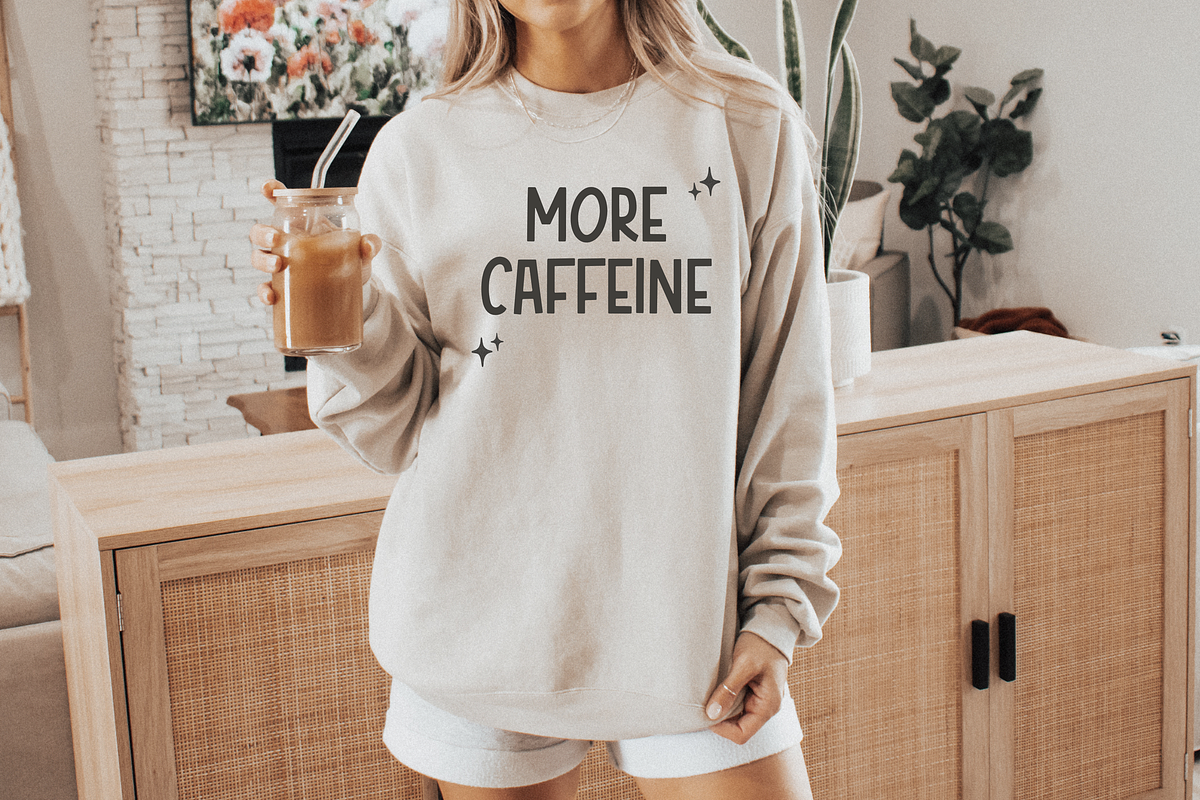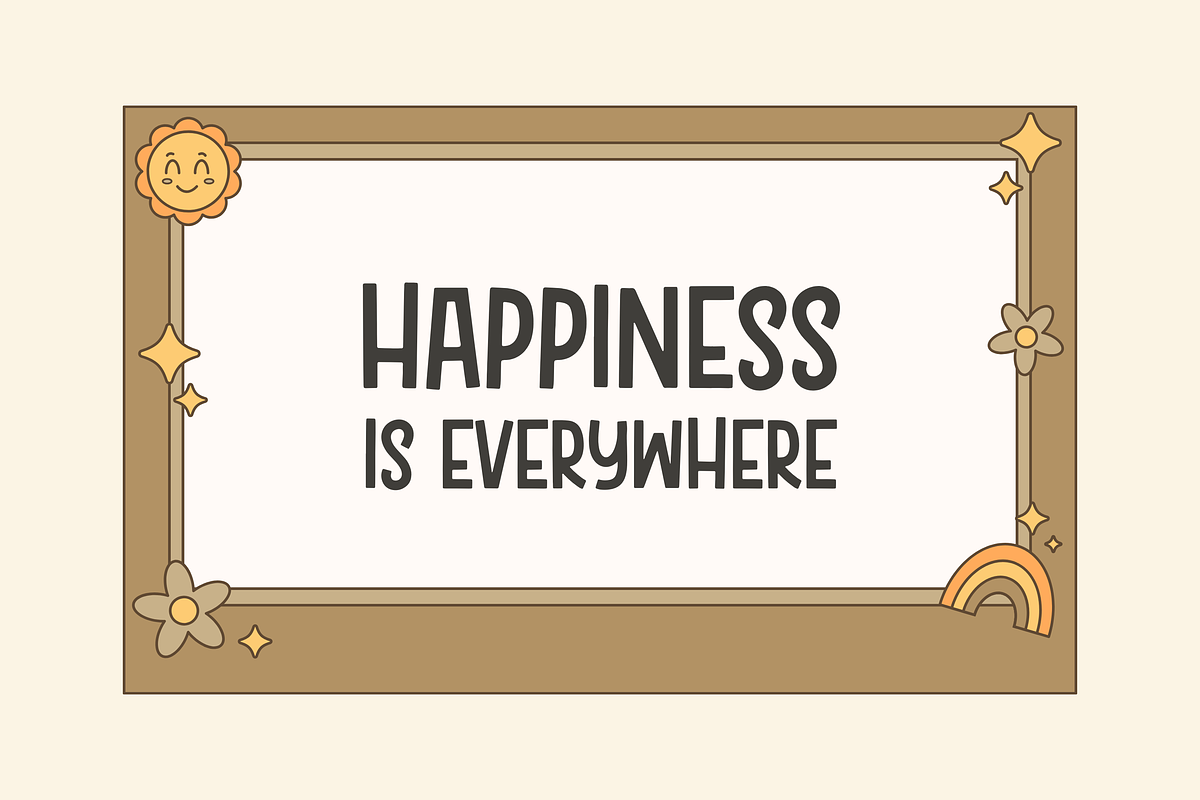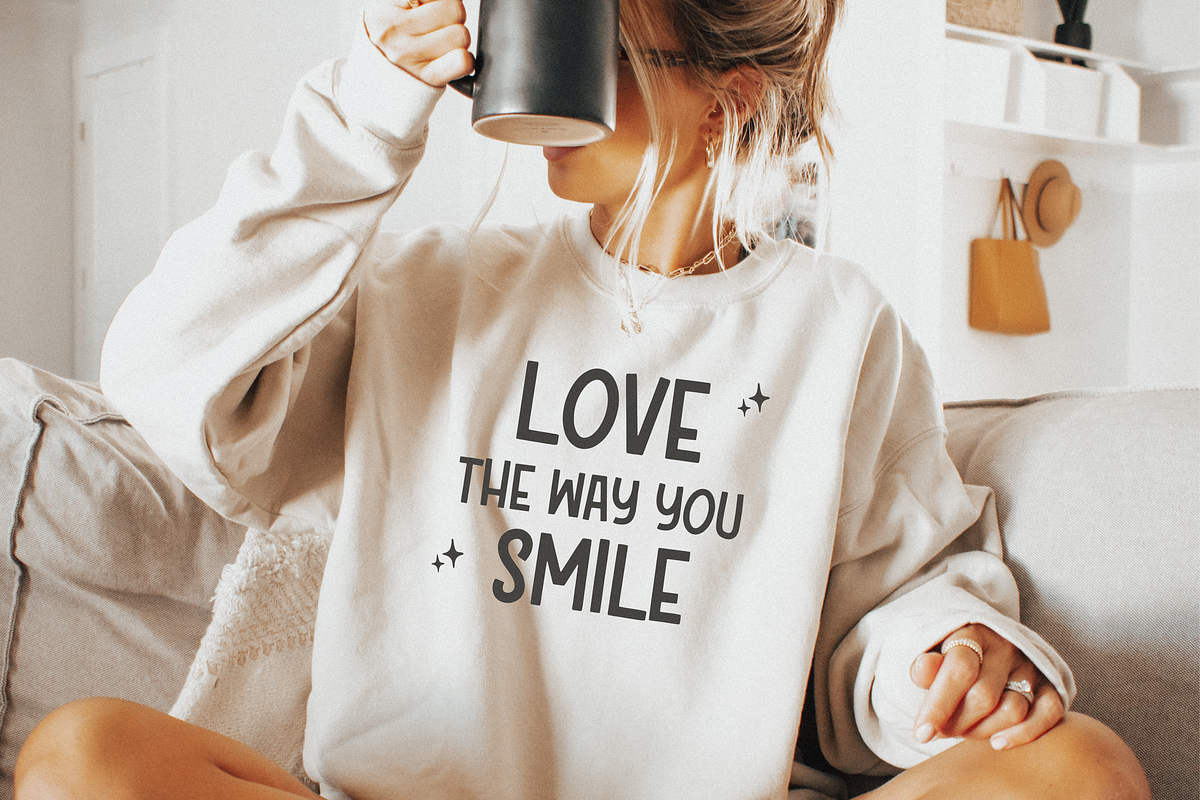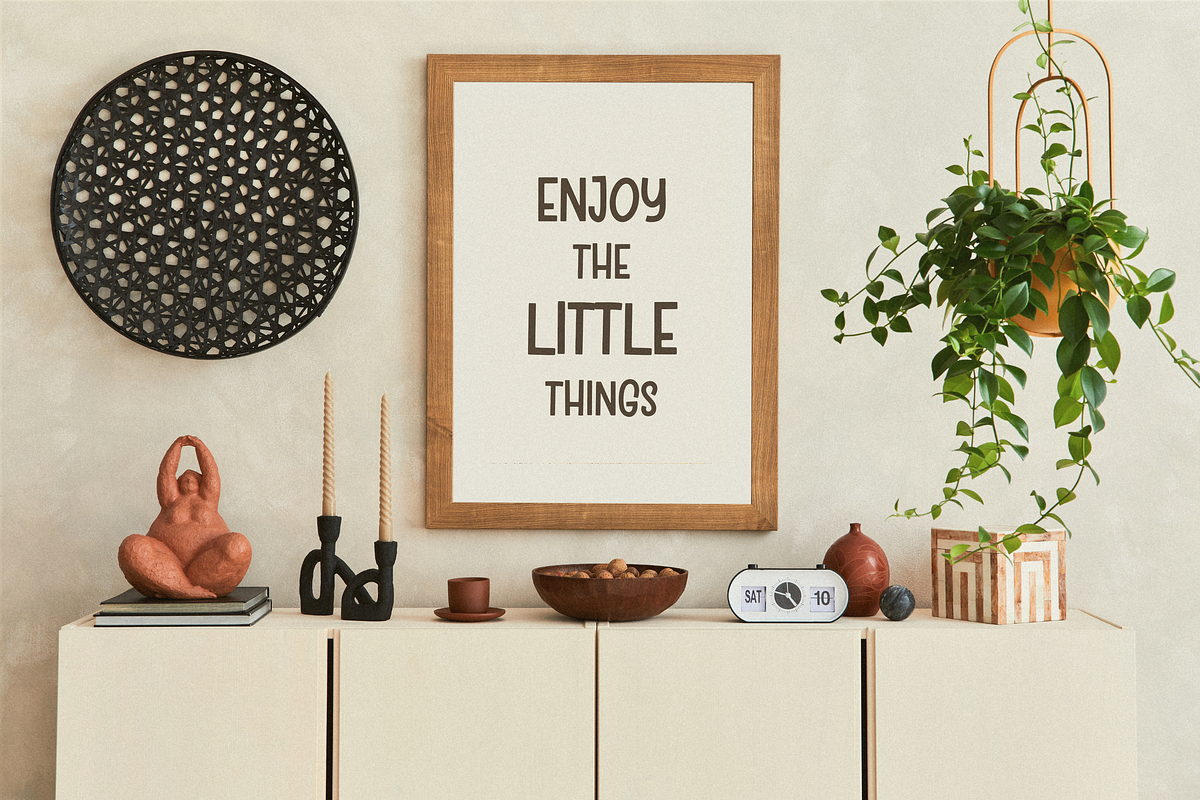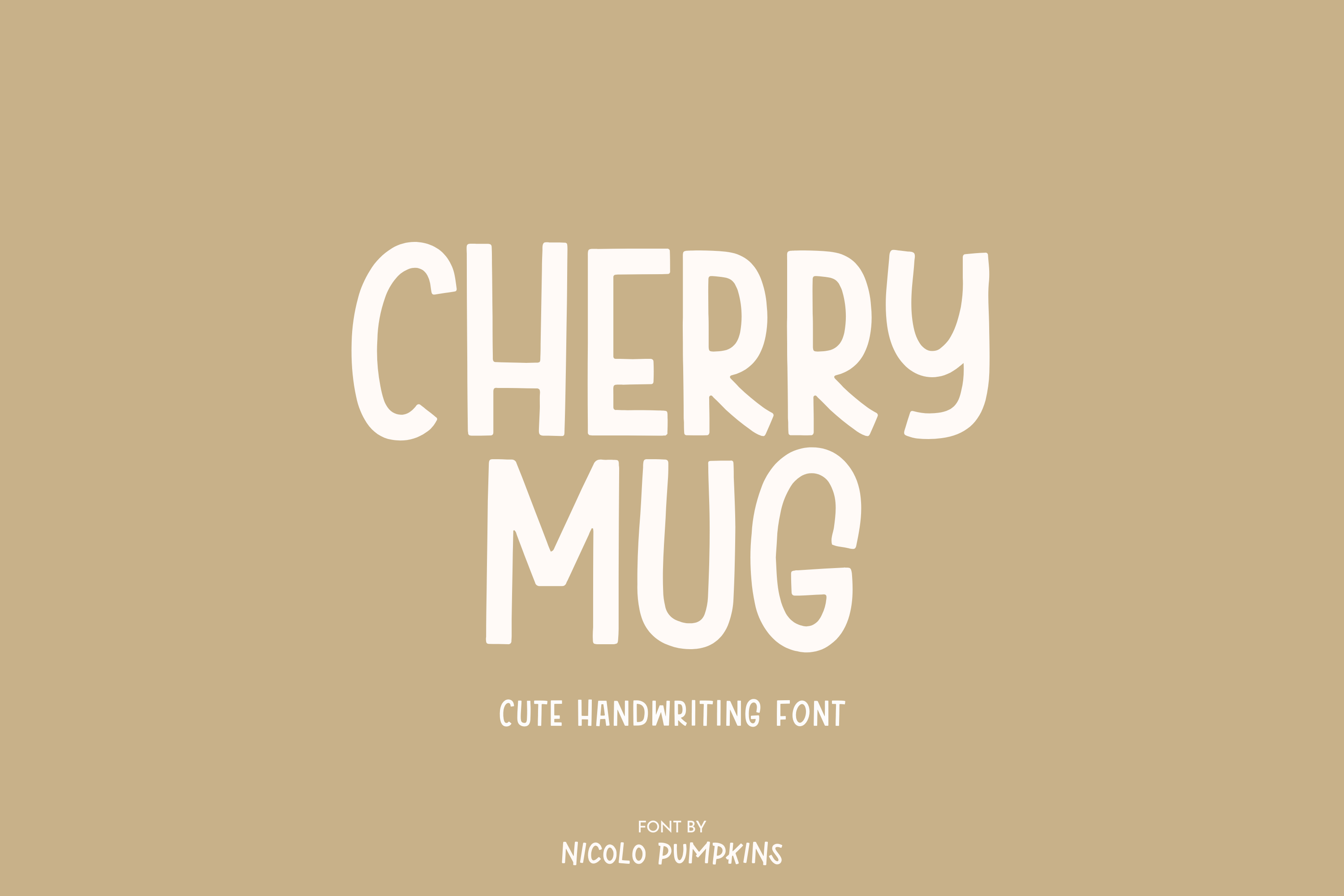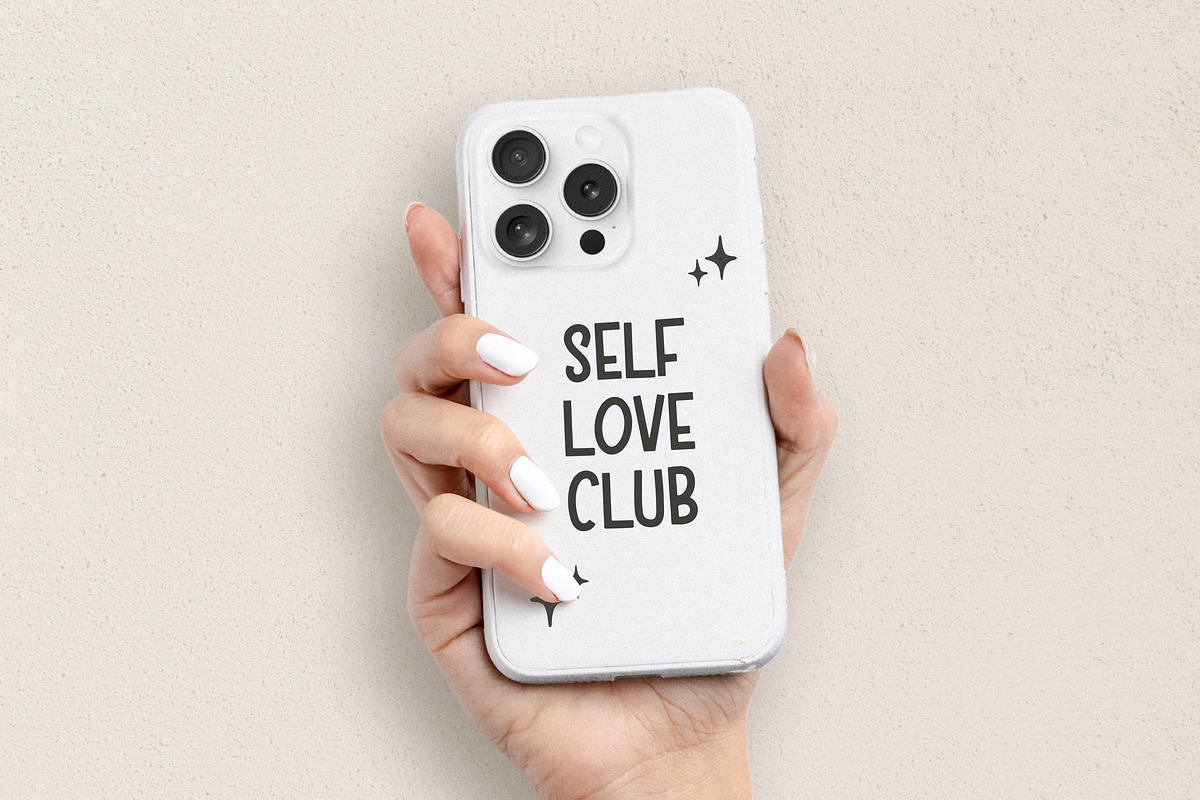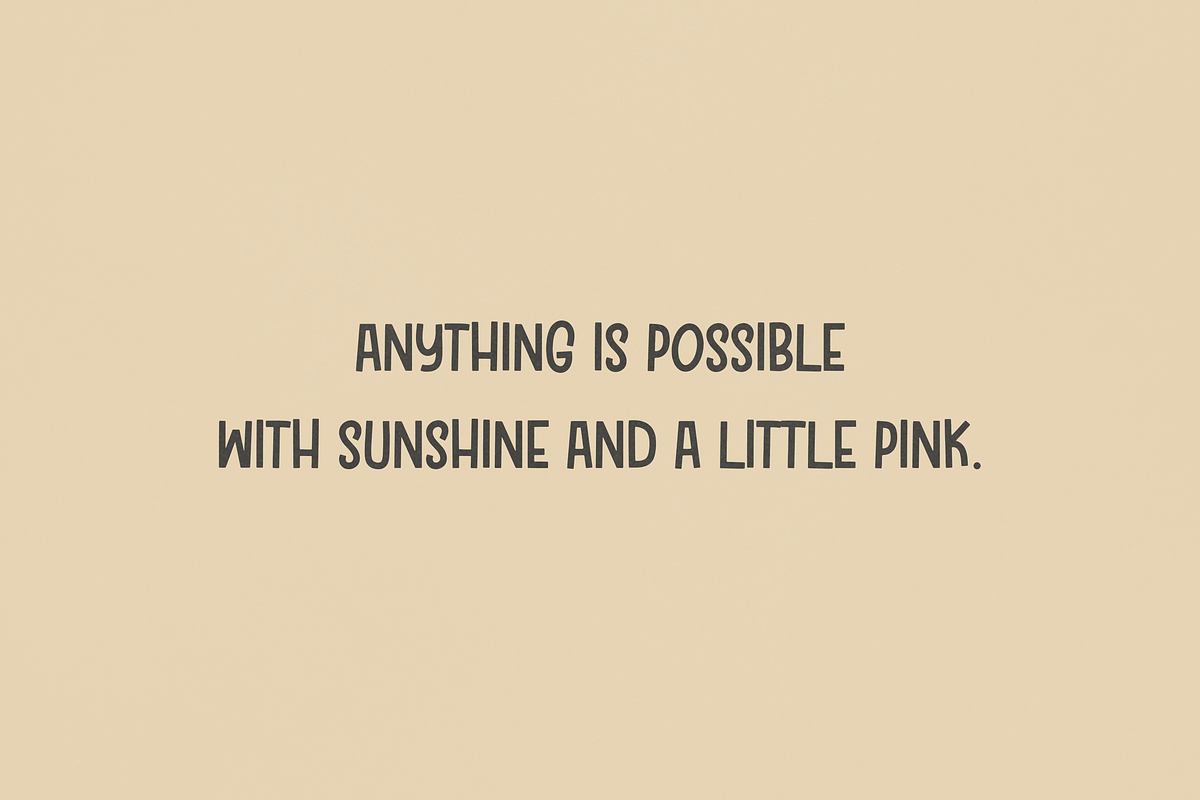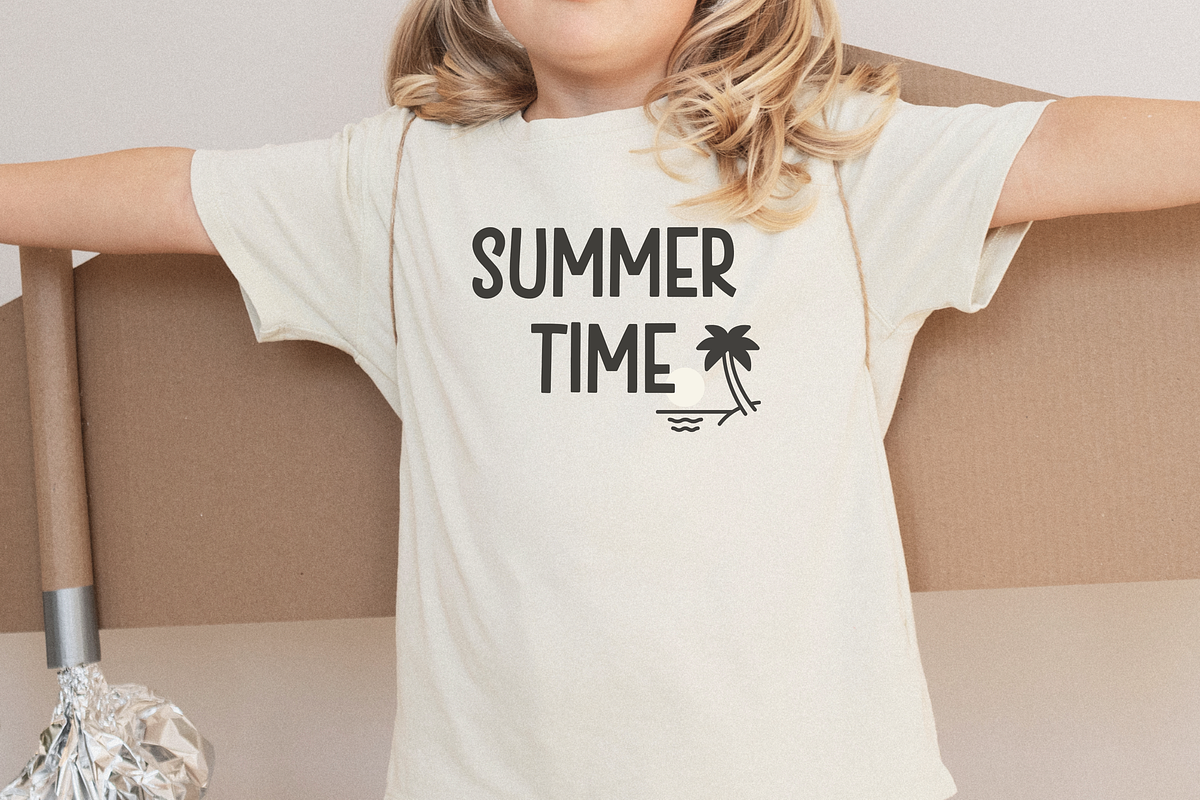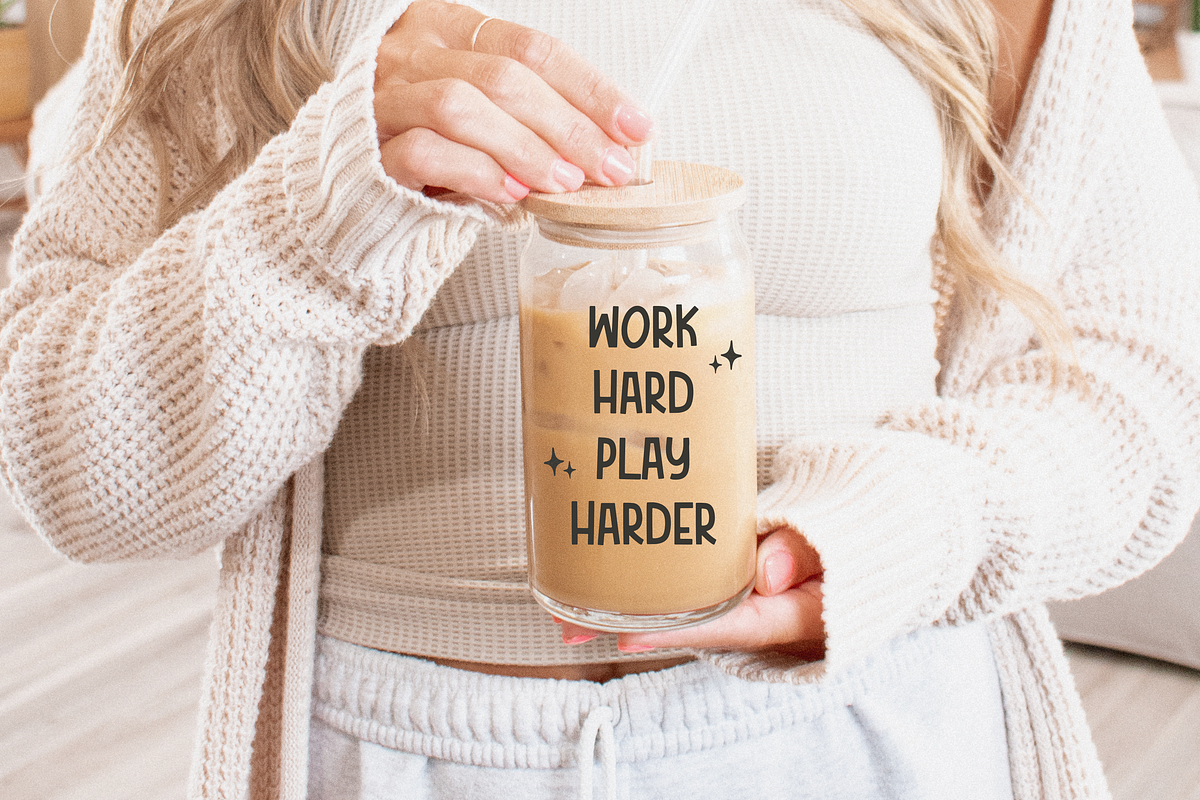
CHERRY MUG Font
CHERRY MUG FONT A neat sans serif font. (ALL CAPITAL LETTER)
✦ CHERRY MUG FONT is perfect for: shirts, mugs, logos, wedding invitations, poster, greeting cards, social media, branding, Procreate, Cricut and more!